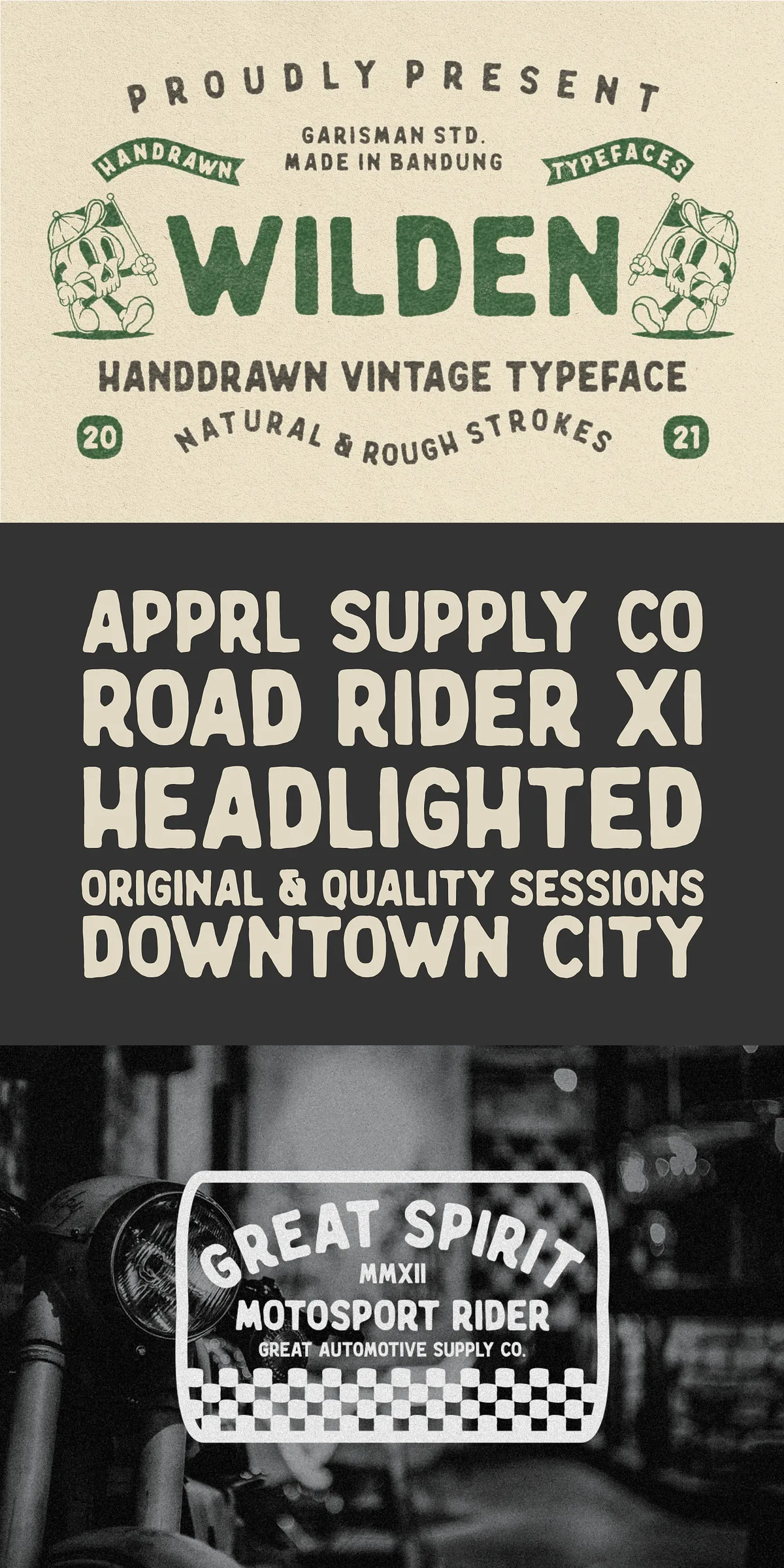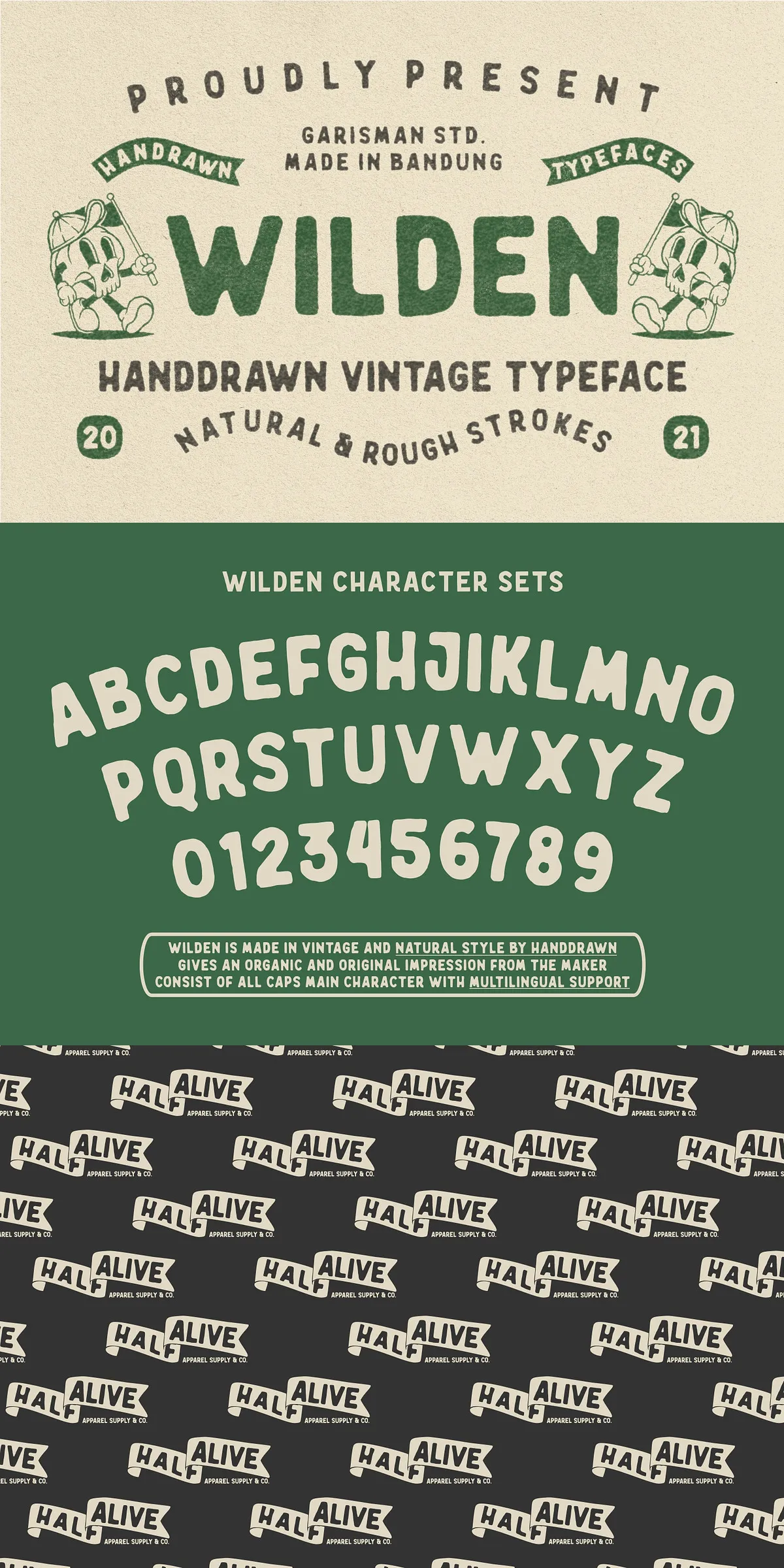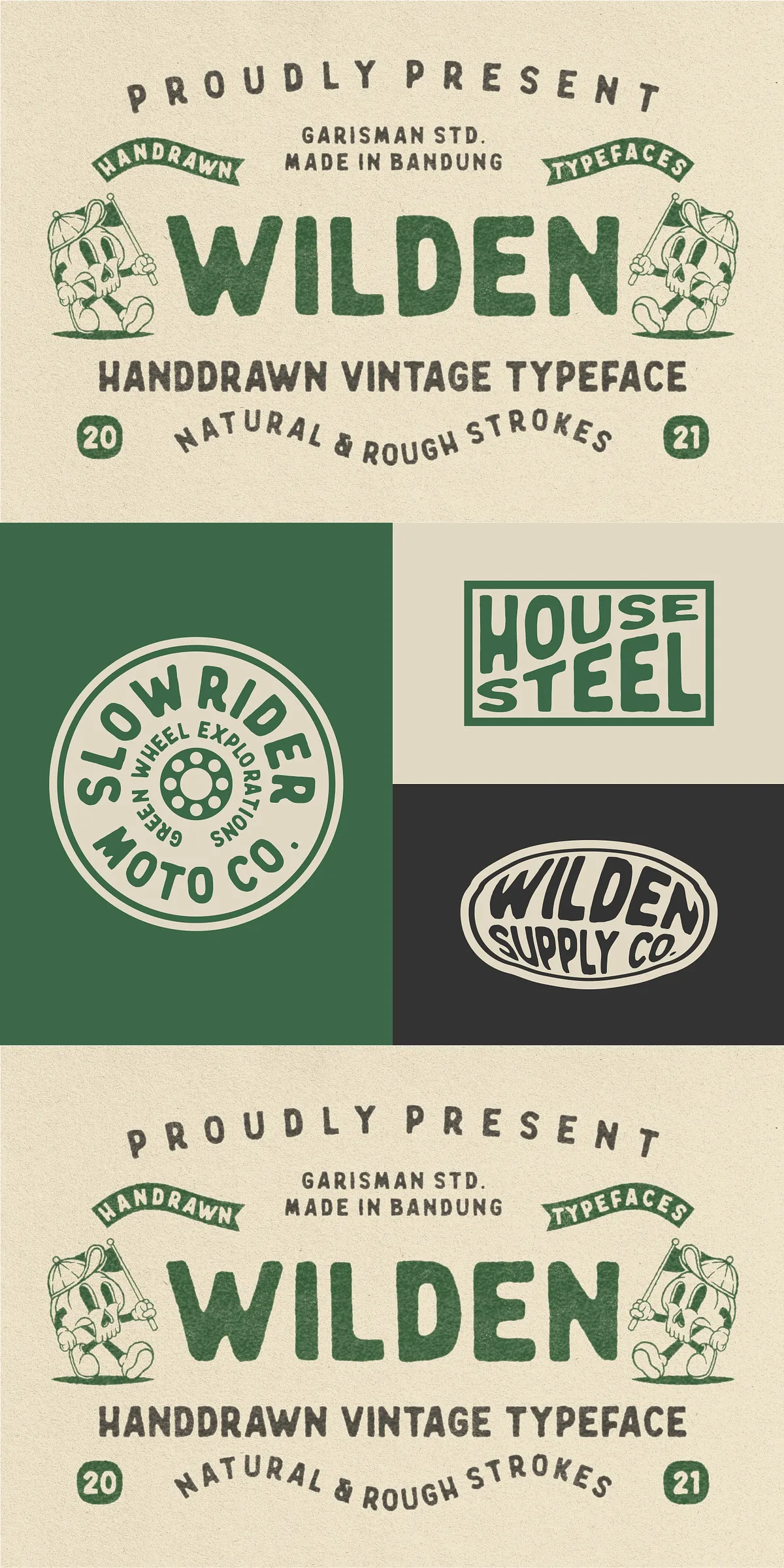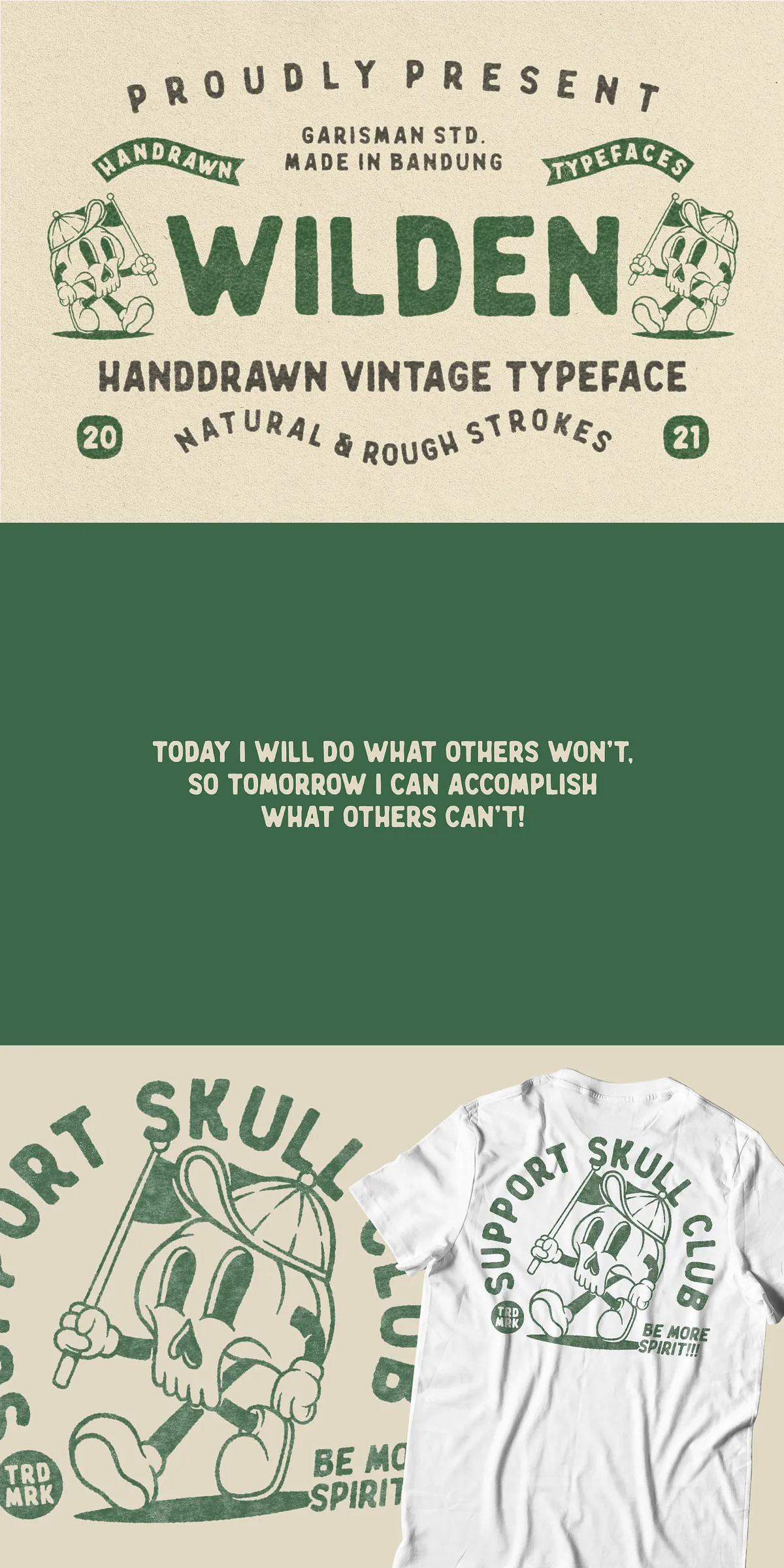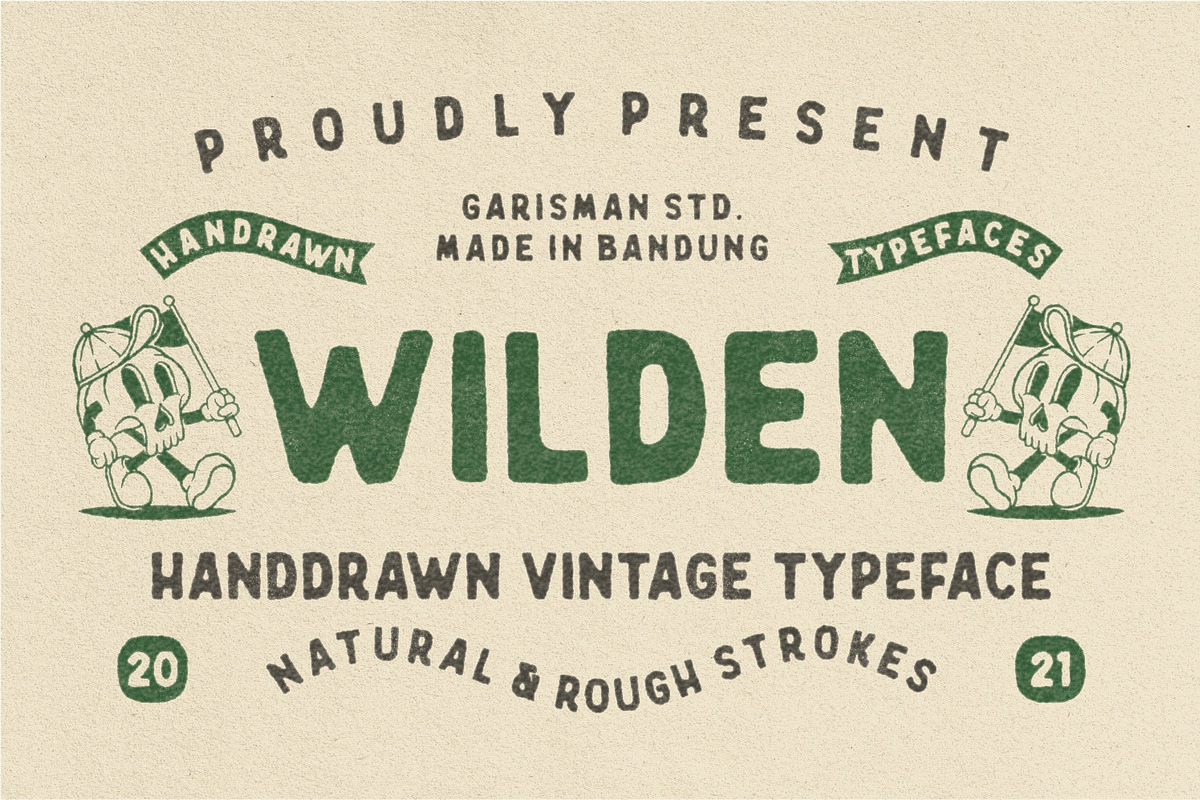
Unleash the soul of the past with Wilden, a hand-drawn vintage typeface crafted to capture the raw, organic energy of classic artisanal design. Inspired by real vintage display art, Wilden delivers a timeless aesthetic that feels genuine, unfiltered, and deeply personal. Every letterform carries the subtle imperfections of handmade creation—slight variations in stroke, organic curves, and expressive weight shifts—making it the ultimate choice for projects that demand character, warmth, and visual storytelling.
Where Authenticity Meets Modern Design
Wilden isn’t just a font—it’s a movement. Designed for creatives who value authenticity over perfection, this typeface bridges the gap between nostalgic craftsmanship and contemporary visual impact. Its hand-sketched appearance evokes old-world signage, vintage posters, and classic brand identity work, yet remains highly legible and adaptable to modern projects. Whether you’re designing a retro-inspired logo, a limited-edition t-shirt, or a bold quote poster, Wilden adds immediate depth and emotional resonance.
Bold, Unique, and Fully Customizable
Built with creativity in mind, Wilden offers:
- Complete Caps Style Coverage: All uppercase glyphs are meticulously crafted for maximum visual impact and consistency.
- Multilingual Support: Fully equipped to handle 14 languages, including Afrikaans, Albanian, Danish, Dutch, English, Estonian, Finnish, French, Italian, Norwegian, Portuguese, Spanish, Swedish, and Zulu—ideal for global brands and diverse audiences.
With Wilden, you’re not just selecting a font—you’re adopting a design philosophy. It’s the perfect foundation for:
- Brand Identity & Logo Design: Create a unique, memorable visual voice that feels real and relatable.
- Merchandise & Apparel: Elevate t-shirts, mugs, tote bags, and stickers with bold, vintage-inspired text.
- Print & Poster Design: Command attention with posters, flyers, and exhibition displays that tell a story.
- Photography & Quote Art: Add expressive typography to images that speaks directly to the viewer’s emotions.
- Website & Social Media: Use Wilden for headlines, banners, and call-to-action text to create bold, engaging digital experiences.
Bring Your Vision to Life with a Font That Feels Alive
Wilden is more than a typeface—it’s a statement. It’s for designers who believe that the most powerful visuals aren’t flawless, but filled with soul. It’s for brands that value authenticity, craftsmanship, and emotional connection. It’s for every project where you don’t just want to be seen—you want to be remembered.